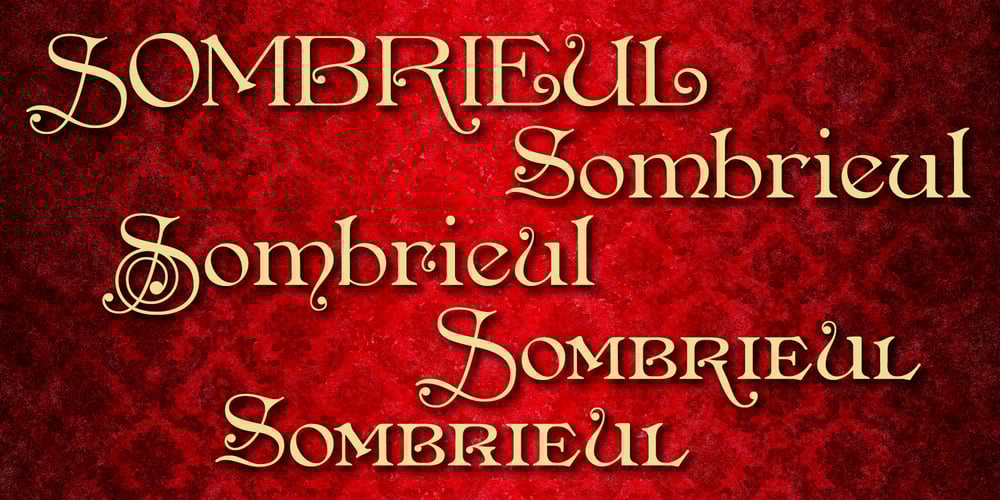
Sombrieul
Sombrieul font
Sombrieul Font Family was designed by Paul James Lloyd and published by Greater Albion Typefounders. Sombrieul contains 1 styles and family package options. Sombrieul is Greater Albion’s greatest and grandest Edwardian display typeface yet. Just the thing for any project with a late 19th/early 20th century inspiration. Sombrieul has a LOT of opentype features:- stylistic alternates, ligatures, discretionary ligatures, small capitals, title forms, swash capitals, old-style and lining numerals, numeral title forms. Of course, these features don’t allow for infinite variability in appearance, there must be some limits after all! They do allow for a lot of variety, however! There are over 1,000 glyphs…